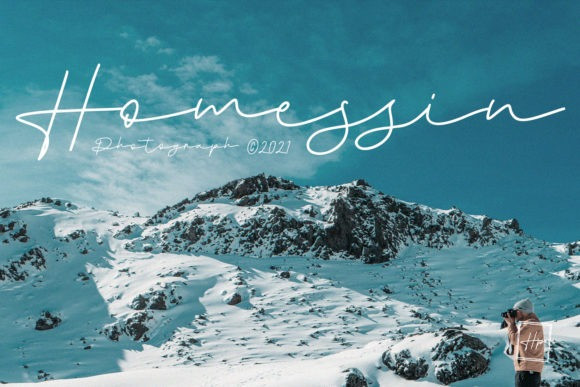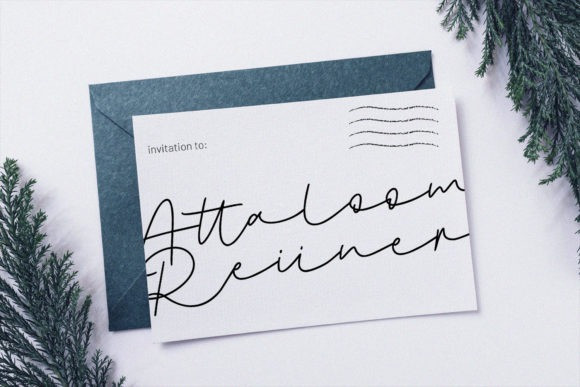
Reallax Reaxion Script Font
Reallax Reaxio Handwritten Typeface. A collection of letters and numbers suitable your projects also great for Logotype, Branding Design, Logo Design, Digital Lettering Arts, T-Shirt/Apparel, Poster, Magazine, Signs, Advertising Design, and any design needs.